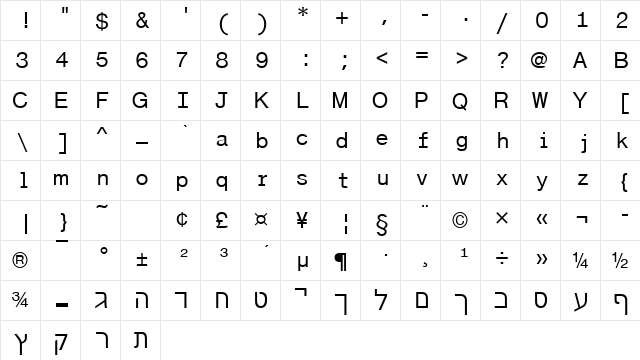
SidaHebMLig Regular
Design Context for SidaHebMLig Typeface
SidaHebMLig is a composed and adaptable typeface that performs quietly and consistently across a wide range of design contexts.